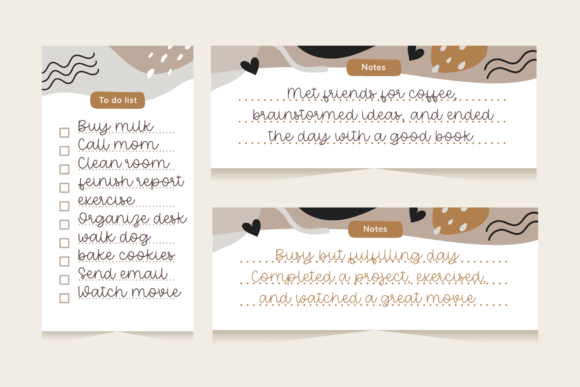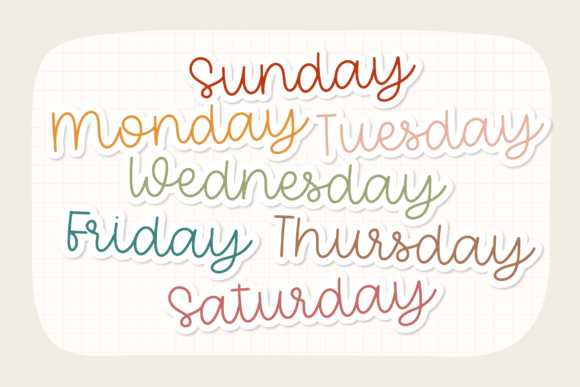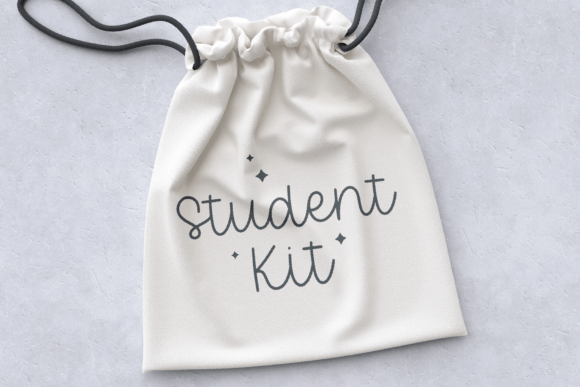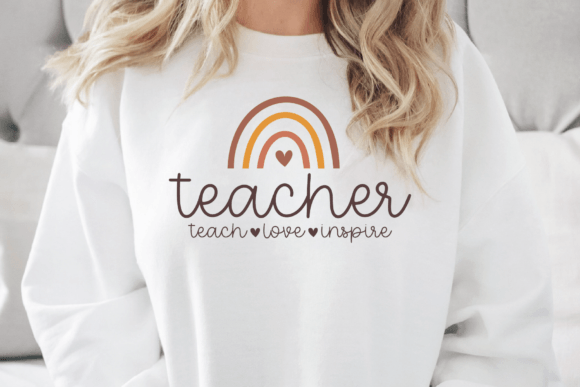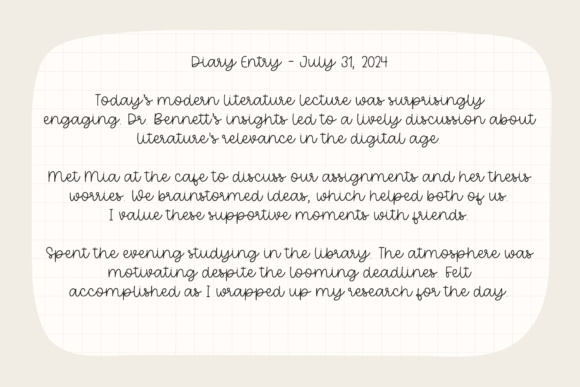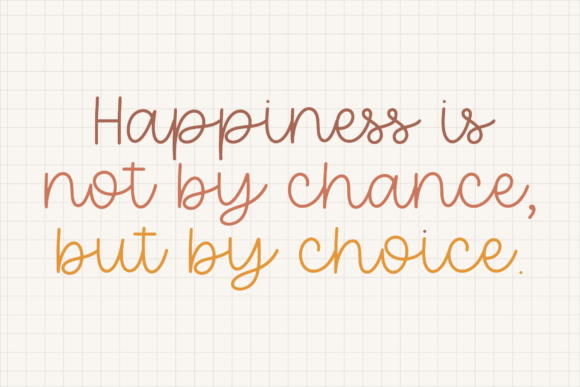
Introduction to Memo Sketch Font
Do you remember that moment when you stumbled upon a beautiful, handwritten font that instantly sparked a creative idea for your next project? For designers, finding the perfect font can be a game-changer. It’s like discovering a hidden treasure that elevates your design to the next level. Today, we’re excited to introduce you to the charming Memo Sketch Font, a high-quality, versatile font that’s perfect for a wide range of creative projects.
Whether you’re working on a wedding invitation, social media post, or stationery art, the Memo Sketch Font is an excellent design resource that can add a touch of elegance and sophistication to your work. Its transparent background and beautiful, handwritten style make it an ideal choice for designers who want to create unique and eye-catching designs. And the best part? This amazing font is available for free download, making it an accessible resource for designers of all levels.
Key Features of Memo Sketch Font
- Transparent background for seamless integration with various design elements
- Perfect for creating unique and eye-catching designs, with a distinctive, hand-drawn feel
- Resolution-independent, ensuring crisp and clear display on various devices and screens
- Supports various font sizes and styles, allowing for flexible and creative typography
Honest Review: Memo Sketch Font
As a designer, I’m always on the lookout for high-quality design resources to enhance my creative projects. The Memo Sketch Font has been a valuable addition to my design toolkit. It’s a versatile font that works well in a variety of contexts, from digital design to print media.
- ✨ Easy to read and understand, even in small font sizes.
- ✨ Offers a range of customization options, making it suitable for various design styles.
- ✨ Includes a transparent background, which is perfect for designers who prefer to work with a clean and minimalist aesthetic.
While the Memo Sketch Font is a solid design resource, there are some limitations to consider:
- ⚠️ Limited support for bold and italic styles.
- ⚠️ May not be suitable for projects that require a highly customized font.
Overall, I’m impressed with the Memo Sketch Font. Its versatility and ease of use make it an excellent choice for designers working on a variety of creative projects. While it may not be perfect, it’s a solid addition to any design resource library.
How to Use Memo Sketch Font
Introduction to Memo Sketch Font
Memo Sketch Font is a versatile and high-quality design resource that offers a transparent background, perfect for adding a touch of creativity to your projects. With its unique and stylish aesthetic, it’s an ideal choice for various creative projects.
Tips for Getting the Most Out of Memo Sketch Font
To get the most out of Memo Sketch Font, try experimenting with different font sizes, colors, and combinations to achieve a unique and eye-catching design.
Common Use Cases for Memo Sketch Font
Memo Sketch Font is perfect for a variety of creative projects, including:
- Brochures
- Posters